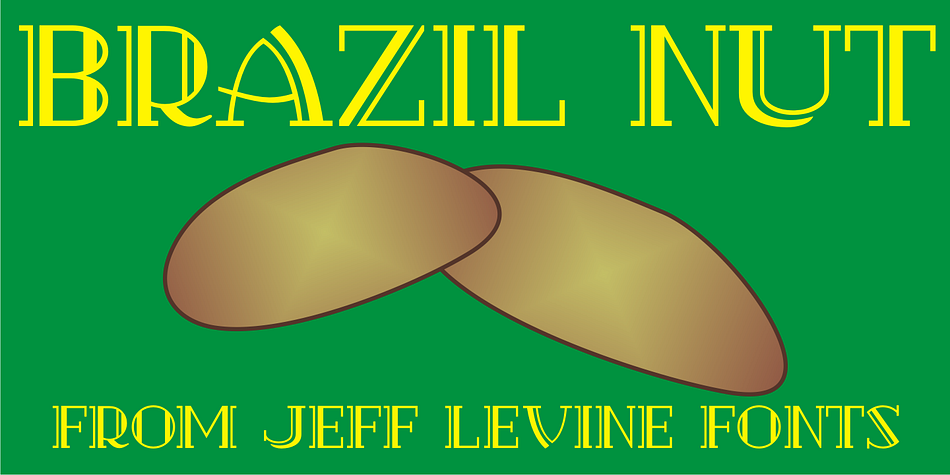
BRAZIL NUT JNL
Brazil Nut JNL is a display serif font published by Jeff Levine Fonts.
Brazil Nut JNL comes from hand lettering on some 1920s sheet music from Florenz Ziegfeld’s musical comedy “Rio Rita”.